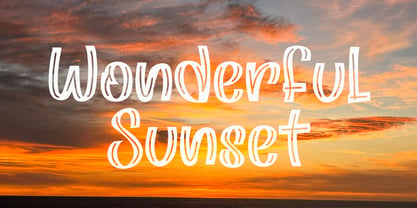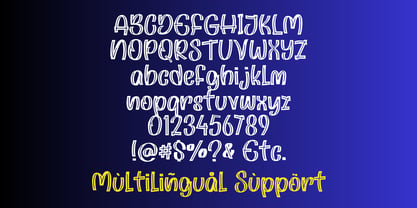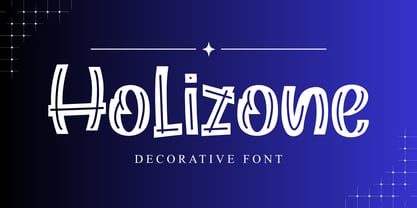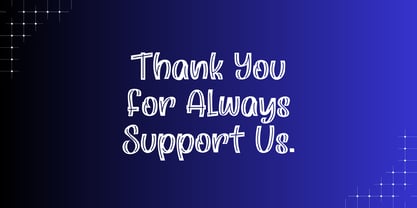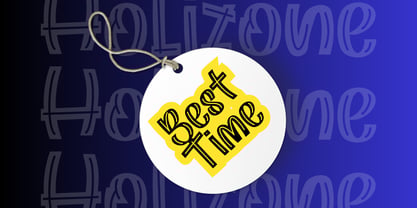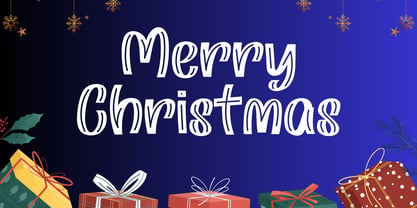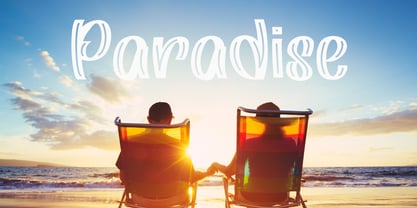
Holizone
by Letterafandi Studio
The Holizone Font Family was designed by Ahmad Afandi and published by Letterafandi Studio. Holizone contains 2 styles and family package options. More about this family
Holizone is a decorative display typeface featuring bold, stylized letterforms with unique linear accents and rounded contours. Its playful shapes and artistic strokes create a futuristic yet friendly character, making it suitable for branding, posters, packaging, event titles, digital graphics, and standout visual designs. With its expressive aesthetic, this font delivers a distinctive look that captures attention and adds personality to creative layouts.
Designers: Ahmad Afandi
Foundry: Letterafandi Studio